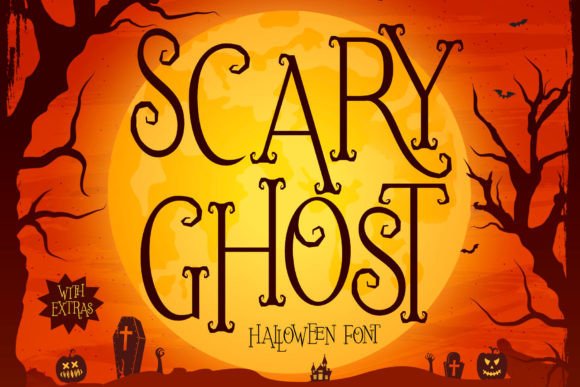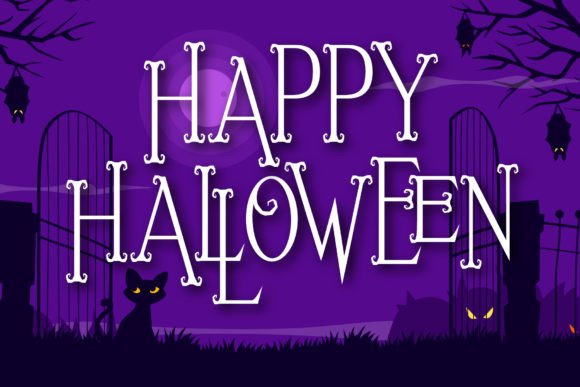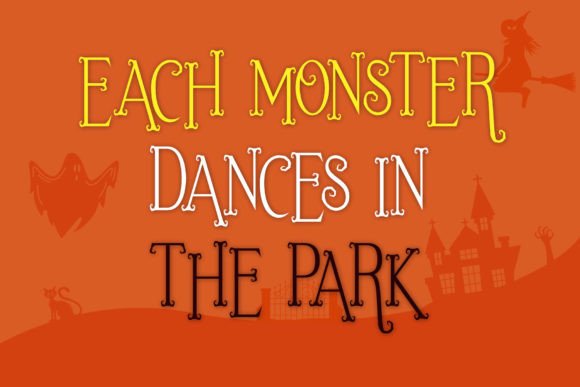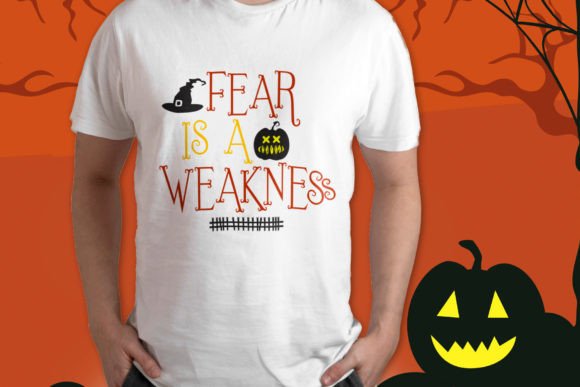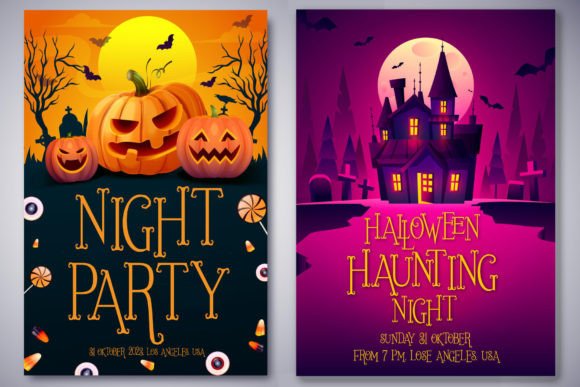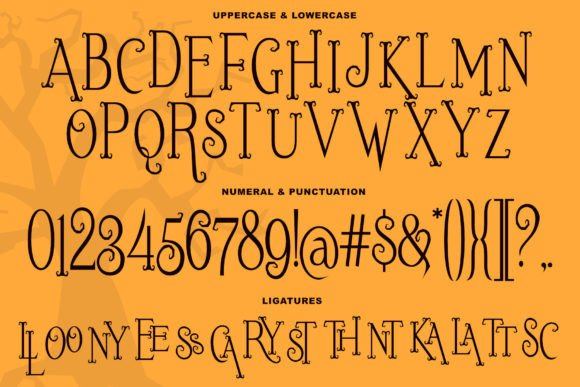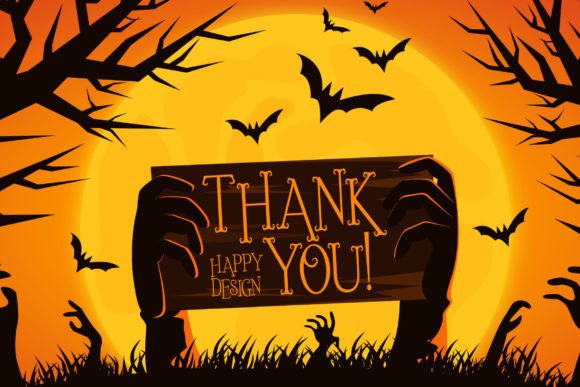
Halloween fonts such as Scary Ghost are great for making Halloween parties fun. It’s also the perfect addition to your next designs, making it easy to create something you can use to make people smile at your Halloween celebration. Scary Ghost is PUA encoded which means you can access all the glyphs and ligatures with ease!
Scary Ghost Font